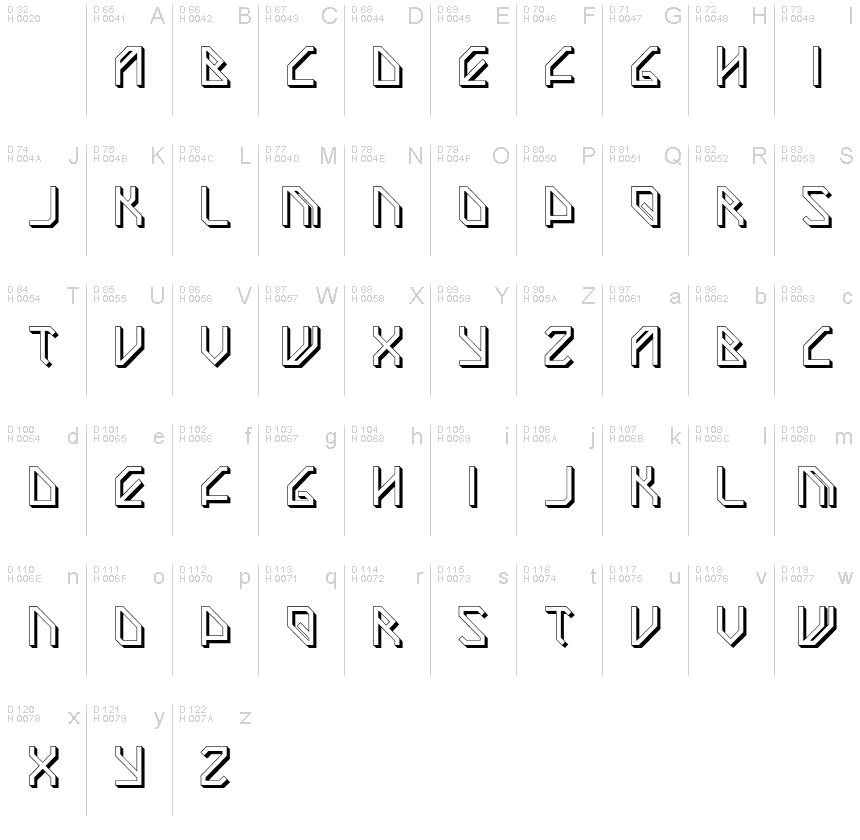
Fewell Regular
Fewell, a captivating display font by Vladimir Nikolic, brings a modern edge to any project.
Its 3D techno style adds depth and dimension, making it perfect for futuristic designs and tech-related branding. The semi-light weight gives it a sleek and elegant look, while the semi-expanded width allows for better readability without compromising on style. Whether you're working on a cutting-edge website, a sci-fi movie poster, or an innovative product packaging, Fewell is the ideal choice to make your design stand out from the crowd.
Based on "Techstep" by Martin Fewell.